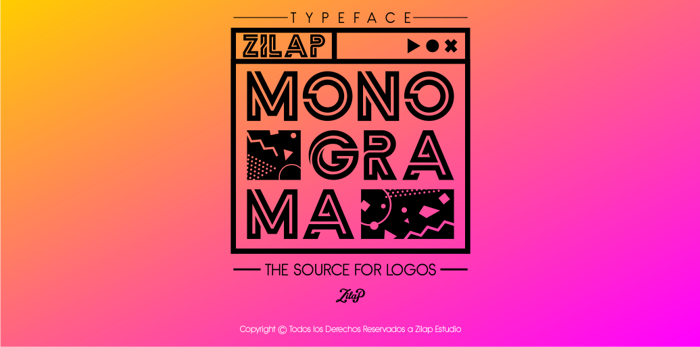
Zilap Monograma Font
ZILAP MONOGRAMA: This font was born Exploration and re-invention of a style" The concept was focused on the daily need of creatives to create new logos for customers and personal products, based on all this was created Zilap Monogram "La Fuente para Logos", also designed for special uses on web or projects for printing.
Design & Concept by Zilap Studio
Assembly and foundry by LJ Design Studios